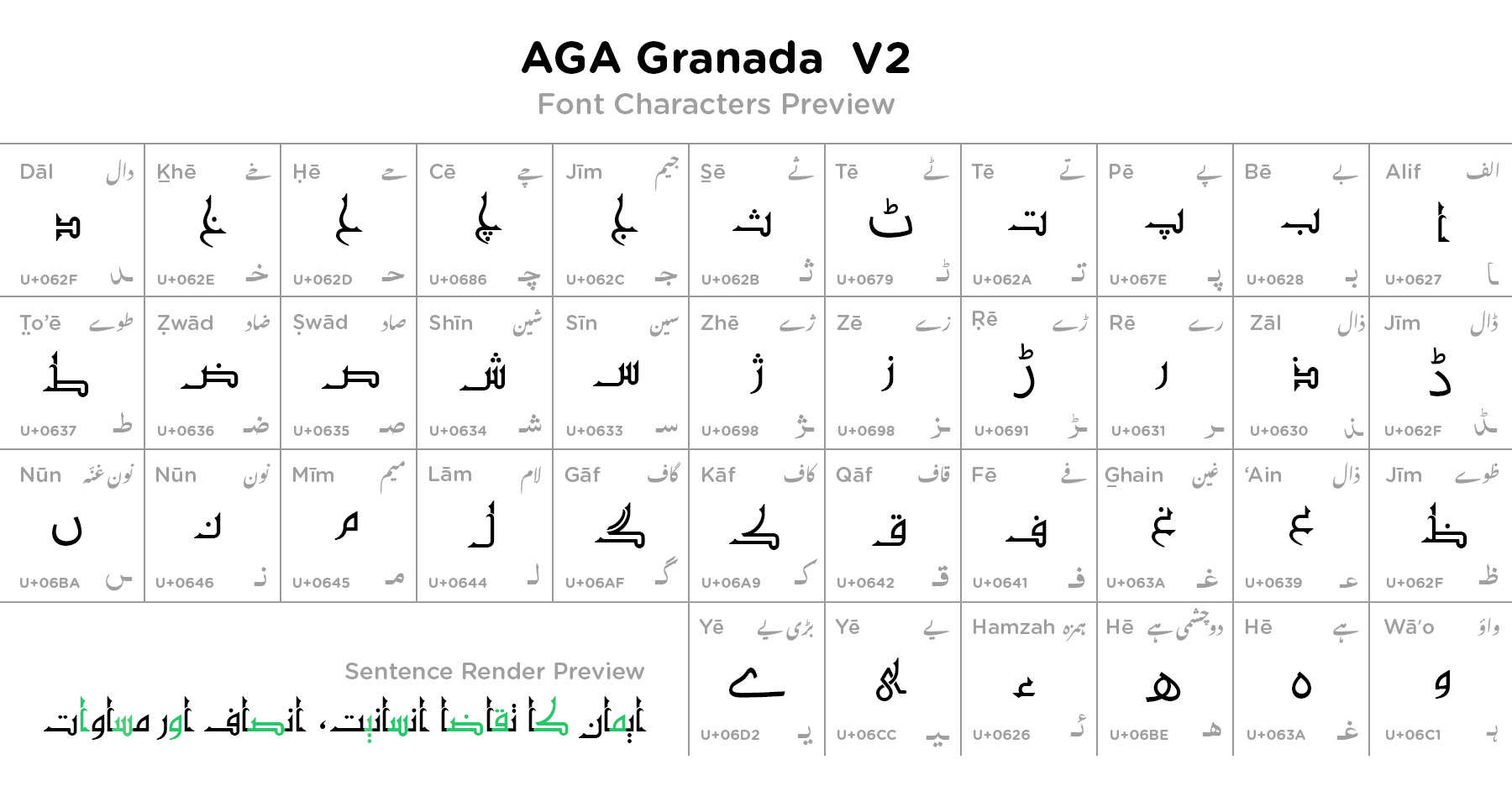
AGA Granada V2
AGA Granada V2, developed by Almedia Interactive Ltd. and Mohammad Alagha, is a decorative Arabic font that can be recognized by its embellished letterforms featuring sharp small outlets. Inspired by Naskh’s calligraphy, it displays a strong baseline and horizontal emphasis, adding a sense of elegance and tradition. Released on October 8, 2017, AGA Granada V2 offers 493 characters and 475 glyphs, providing designers with enough room for their design requirements. With a normal weight and medium width, it strikes a balanced appearance suitable for various applications.
However, with only one weight available, its practicality may be limited. Ideal for short texts, its decorative outlook lends itself well to posters, flyers, logos, invitations, and branding projects. Despite its ornate design, the typeface maintains high legibility, especially at larger sizes where its embellished letterforms can be fully appreciated. Its strokes are solid and impactful, contributing to its visual appeal. With even and monospaced letter spacing, AGA Granada V2 ensures consistent alignment and readability. Supporting Arabic, Latin, and Persian languages, it caters to design projects with multilingual needs. Moreover, its Unicode blocks cover a wide range of characters and symbols, ensuring compatibility with various text encoding standards.